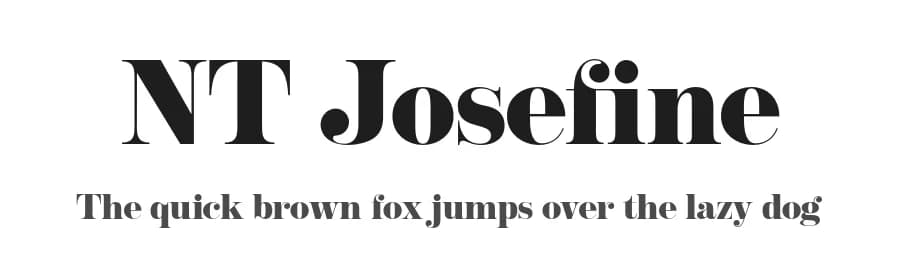
About NT Josefine Font
"NT Josefine" is a new serif font, that will bring a touch of elegance to any project.
"NT Josefine" will perfect for many project: invitations, postcards, posters, book covers, advertisements, website headers, logos, magazines, fashion, branding, photography etc.
NT Josefine Font